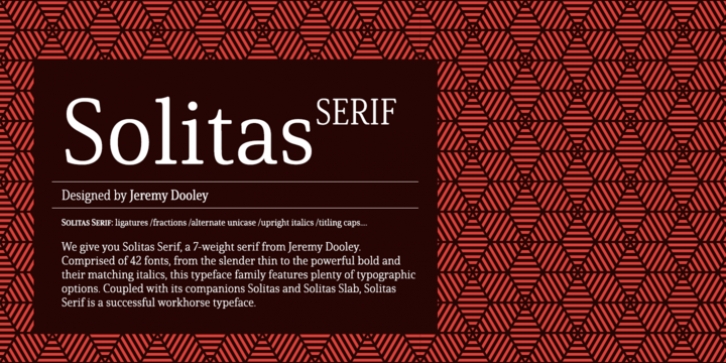
Say it softer with Solitas Serif. Perfect for the designer needing a serif without the stiffness, Solitas Serif will turn your reader's eye with its slight serifs and rounded corners. This softer version of the curves found in Solitas and Solitas Slab gives your work a subtle yet noticeable charm.
Solitas Serif’s OpenType options include capitals, ligatures, ordinal numbers, fractions, denominators, superscripts and subscripts. Serif also supports Western European, Central European and Eastern European languages.
For a sweet approach, charm your reader with simple and soft. Charm them with the subtle Solitas Serif.